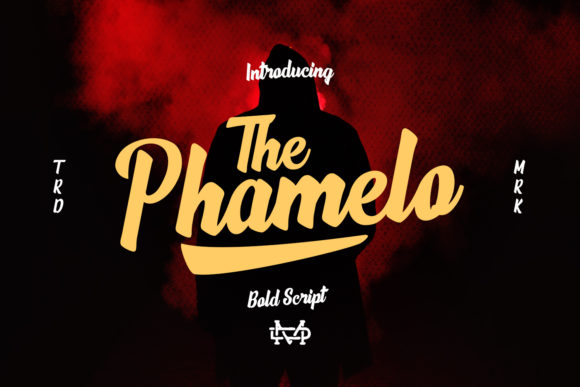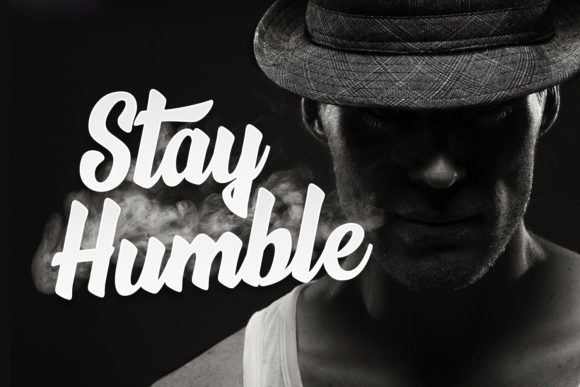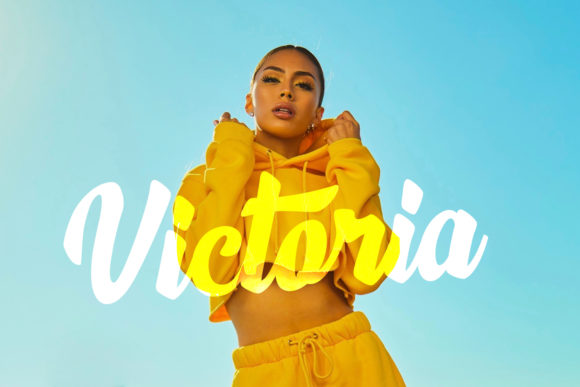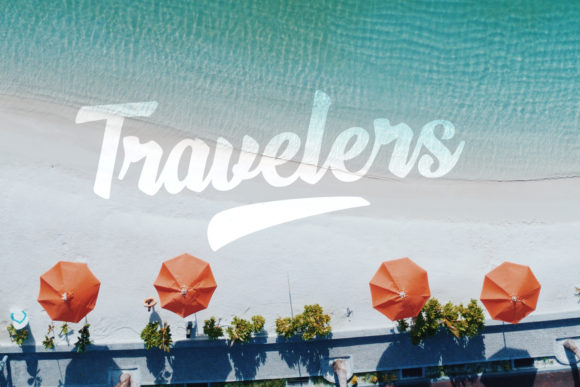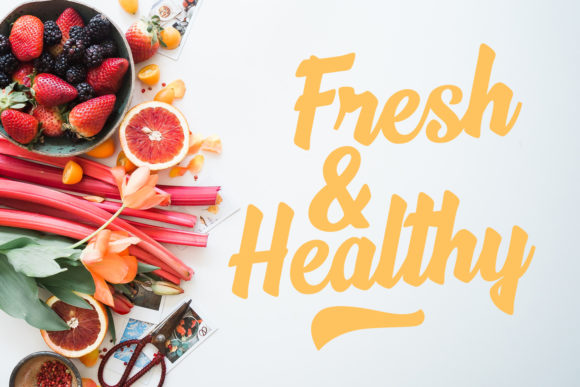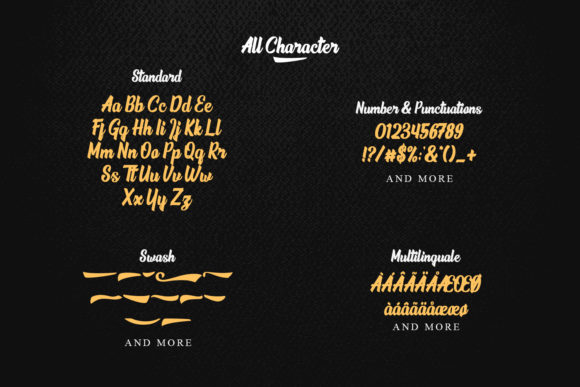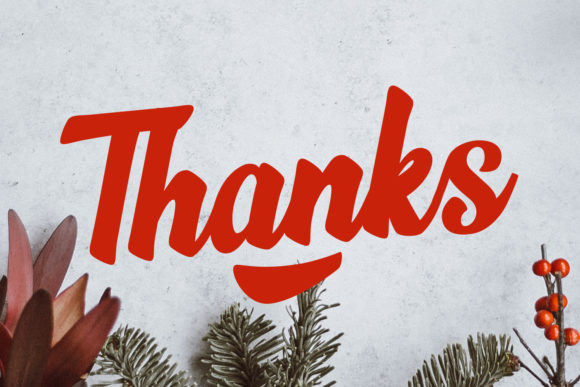
HomeScript FontsThe Phamelo Font Script Fonts The Phamelo Font FacebookXPinterestWhatsApp The Phamelo Font Poster 2 The Phamelo Font Poster 3 The Phamelo Font Poster 4 The Phamelo Font Poster 5 The Phamelo Font Poster 6 The Phamelo Font Poster 7 The Phamelo Font Poster 8 About The Phamelo Font The Phamelo is a bold script with a cool vibe. Get inspired by its unique swashes! DOWNLOAD ON CREATIVE FABRICAThis font is sold and delivered by Creative Fabrica. Font Canyon may earn a commission if you buy through this link. People also explored Reverbnation Font Salidea Font Kawaii Smile Font Halloween Days Font Handover Signature Font Fabulous Font Demilton Font Enjoy Writing Font Mojito Font 317 0 TagsThe Phamelo Font Previous articleBelmonth FontNext articleMishaela Script Font LEAVE A REPLY Cancel reply Comment: Please enter your comment! Name:* Please enter your name here Email:* You have entered an incorrect email address! Please enter your email address here Website: Save my name, email, and website in this browser for the next time I comment. Personal Use Free Special Day Personal Use Free Read more about this font Gardening Personal Use Free Read more about this font Morning Miow Personal Use Free Read more about this font Grillin Personal Use Free Read more about this font BLOG Top 7 Google Fonts Alternatives for Faster and Privacy-Friendly Web Design (2025) Top 7 Google Fonts Alternatives for Faster and Privacy-Friendly Web Design (2025) When it comes to web typography, Google Fonts has long been the go-to... How to Cut Any Font on Cricut: Convert a Font to SVG (Free) Exploring Font Trends Transform Your Website: Elevate Your Typography with 7 Best Web Font Generators